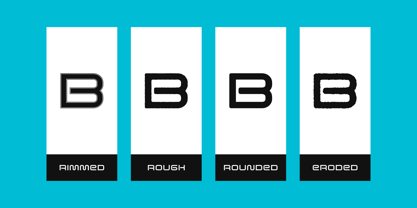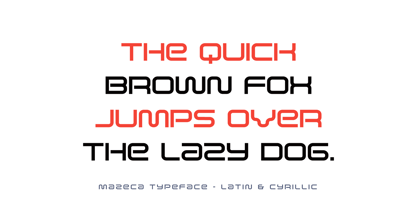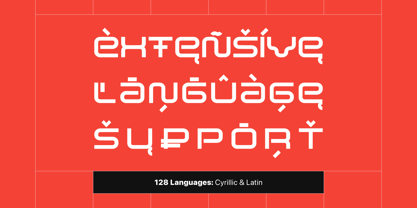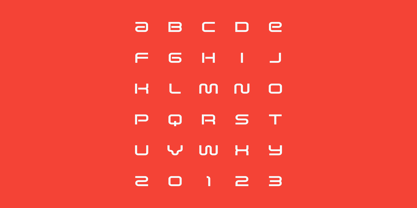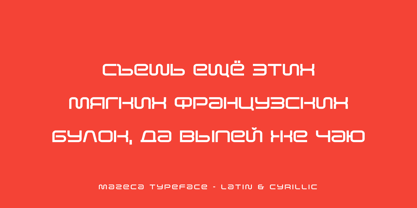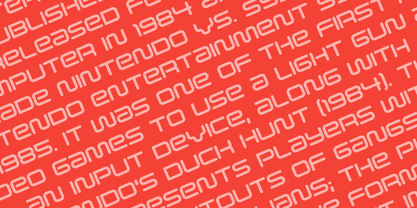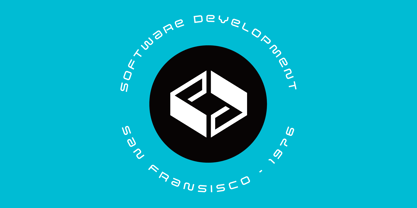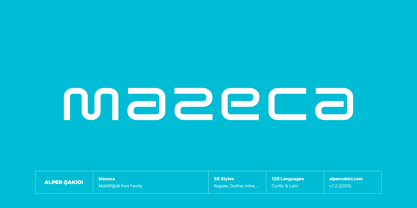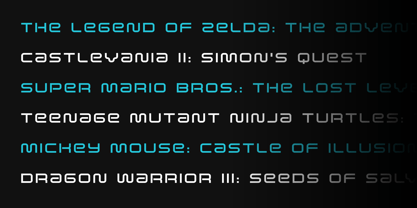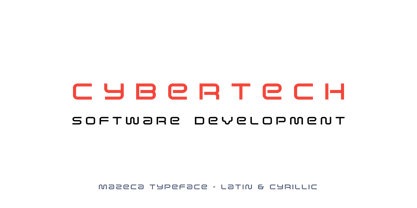
Mazeca
The Mazeca Font Family was designed by Alper Çakıcı and published by AlperCakici. Mazeca contains 58 styles and family package options. More about this family
🌀 Mazeca – A Futuristic Rounded Typeface System Mazeca is a bold, forward-looking type family inspired by curving maze structures and fluid futuristic forms. Its rounded, interconnected shapes create a distinctive visual rhythm that feels both playful and high-tech. With 58 versatile styles, Mazeca ranges from clean and minimal to expressive textured and inline variations—making it ideal for everything from UI design to eye-catching display typography. ✨ Why Choose Mazeca? • 58 Styles: Rounded, curvy, futuristic variants with full italics • Maze-Inspired Design: Smooth paths, flowing geometry, and modern character • Highly Versatile: Branding, tech, gaming, posters, motion graphics, and UI • Optimized Performance: Clear, balanced shapes for print and digital • 128 Languages Supported: Extended Latin + Cyrillic Mazeca is a complete futuristic type system built for designers who want smooth curves, modern energy, and bold originality.